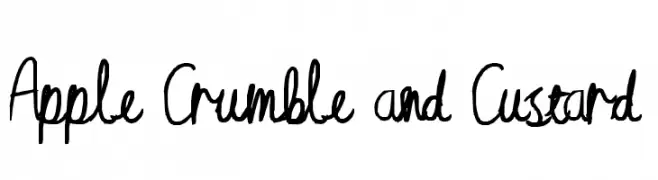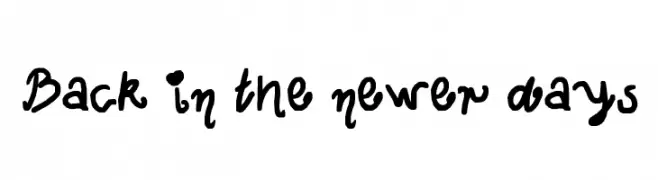
A whimsical font with cartoon bees integrated into bold, rounded letters and numbers.
A playful, sausage-themed decorative font with bold, cartoonish characters.
A dynamic, handwritten-style font with consistent stroke thickness and a slanted, fluid appearance.
An elegant script font with flowing, interconnected letters and ornate flourishes.
Casual monoline handwritten script with rounded forms.
Playful, rounded sans-serif with bold, friendly shapes.
A bold, futuristic font with angular, geometric shapes and a dynamic style.
A dynamic, angular font with a futuristic and tech-inspired design.
A bold, slanted font with sharp angles and a futuristic style.
A bold, futuristic font with geometric, outlined characters.
A bold, geometric font with sharp angles and a futuristic style.
A playful, handwritten-style font with rounded, informal letterforms.
A playful, handwritten font with rounded edges and a casual style.
Elegant handwritten script font.
A bold, decorative font inspired by quilt patterns with geometric, outlined letters.
A playful, bold font with rounded, organic shapes and a whimsical touch.
An ornate, curly decorative font with swirling embellishments.
A playful, bold, and rounded font with a hand-drawn aesthetic.
A striking blend of ancient and futuristic design with sharp, angular lines.
A fluid and elegant handwritten font with dynamic strokes.
A bold, playful font with exaggerated, uneven strokes and a whimsical style.
Ornate dingbat font with angel and fairy illustrations.
A bold, cursive script font with a flowing, handwritten style.
A classic serif font with elegant strokes and balanced proportions.
A decorative font with each character represented by a detailed animal illustration.
Ornamental dingbat font with decorative frames and borders.
A decorative icon font with retro-futuristic vehicle and navigation illustrations.
An elegant italic typeface with smooth, flowing curves and a refined appearance.